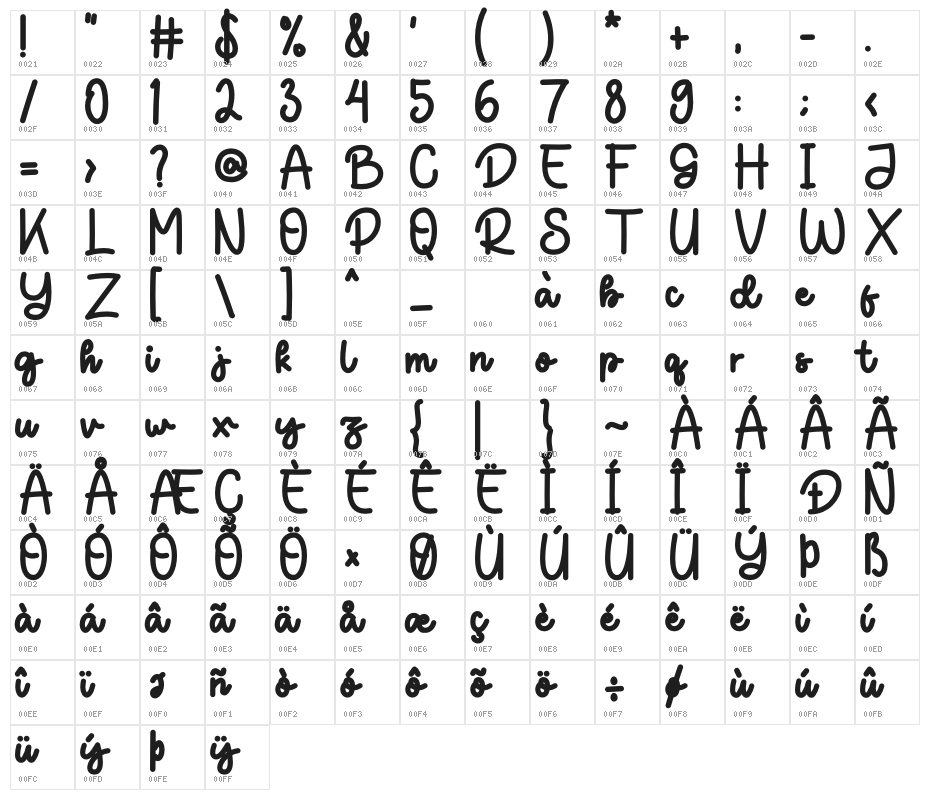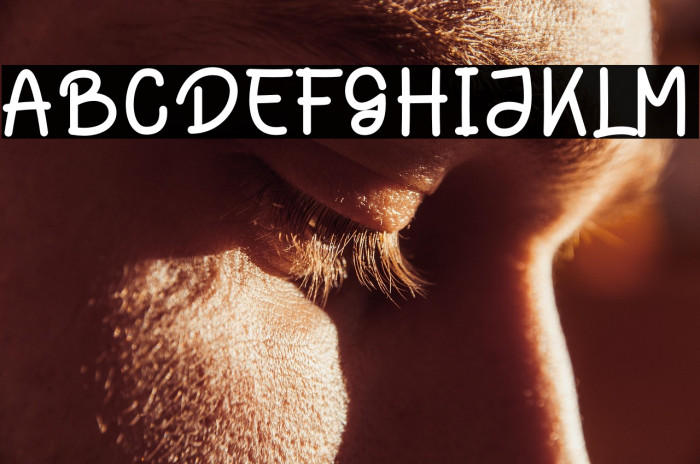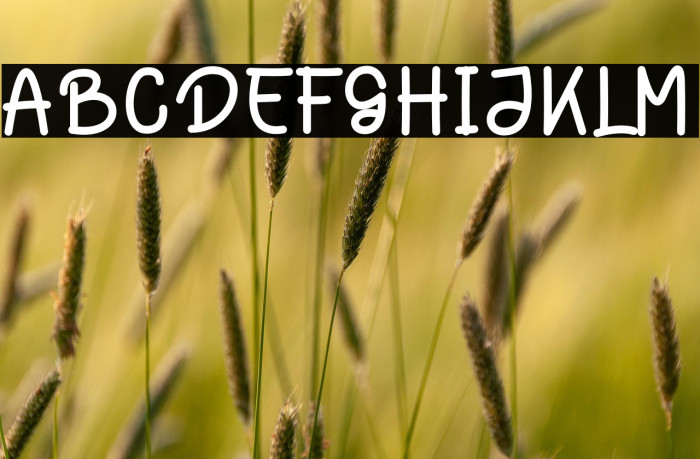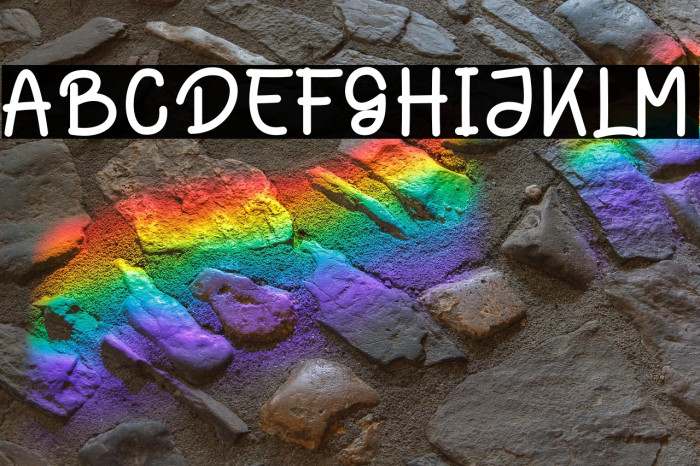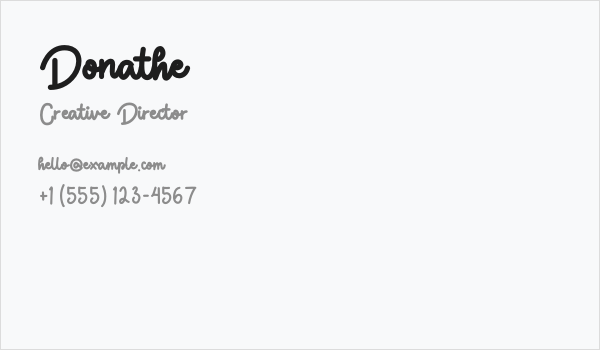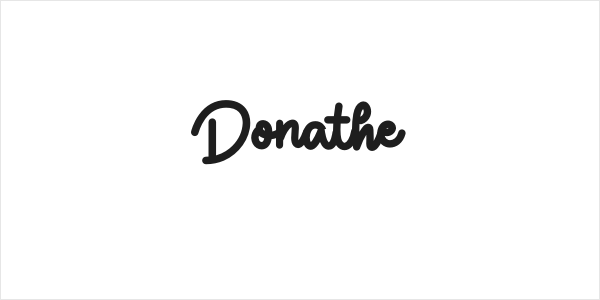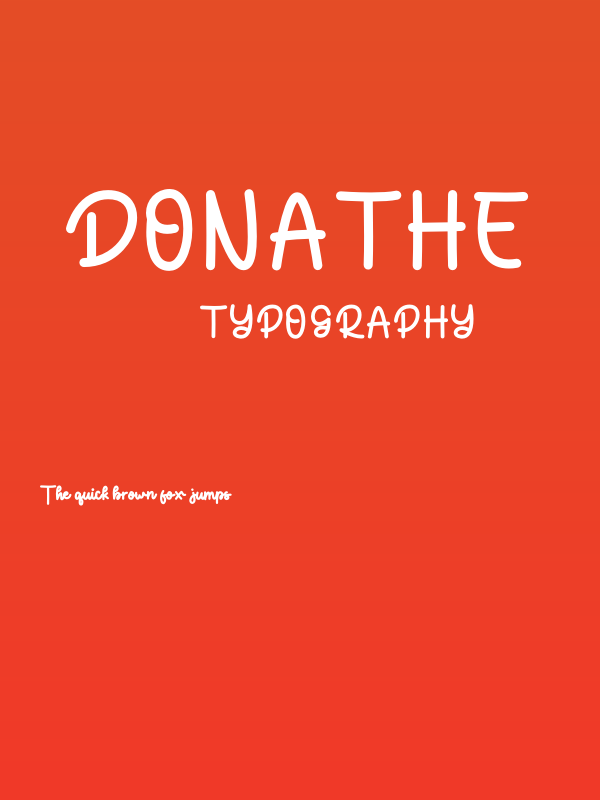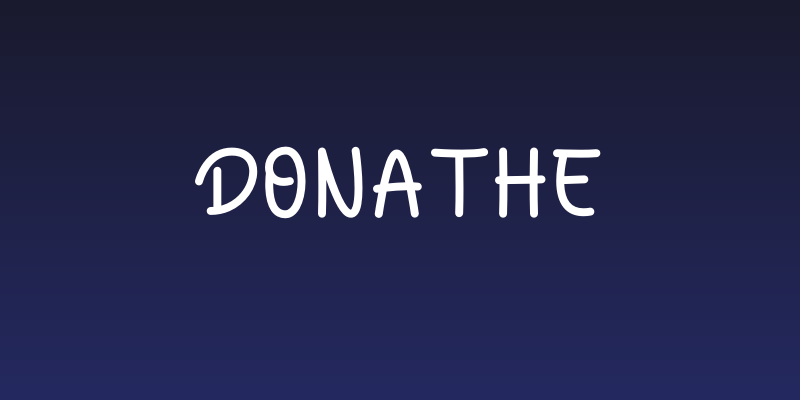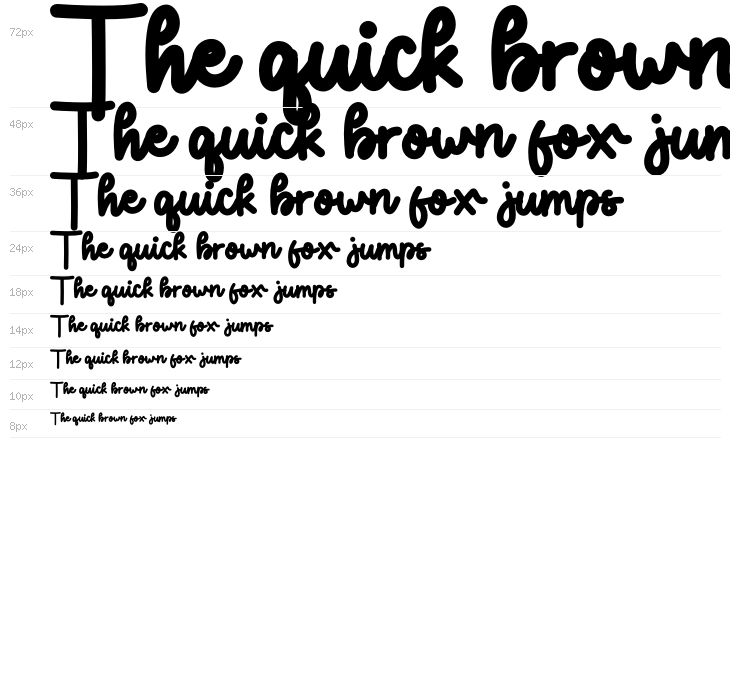
Donathe Font
Donathe Description
This playful and whimsical font features a handwritten style with a casual and friendly appearance. The uppercase letters are bold and rounded, while the lowercase letters exhibit a more fluid and connected script-like quality. The numbers and special characters maintain the same playful aesthetic, making the font versatile for various creative projects. The strokes are consistent in thickness, providing a balanced look that is easy to read. This font is perfect for projects that require a personal touch or a fun, informal vibe.
| Overall Style | Playful |
| Use Case | Headlines, Logos, Social media graphics |
| Proposed Projects | Ideal for greeting cards, children's books, playful branding, and social media graphics. |